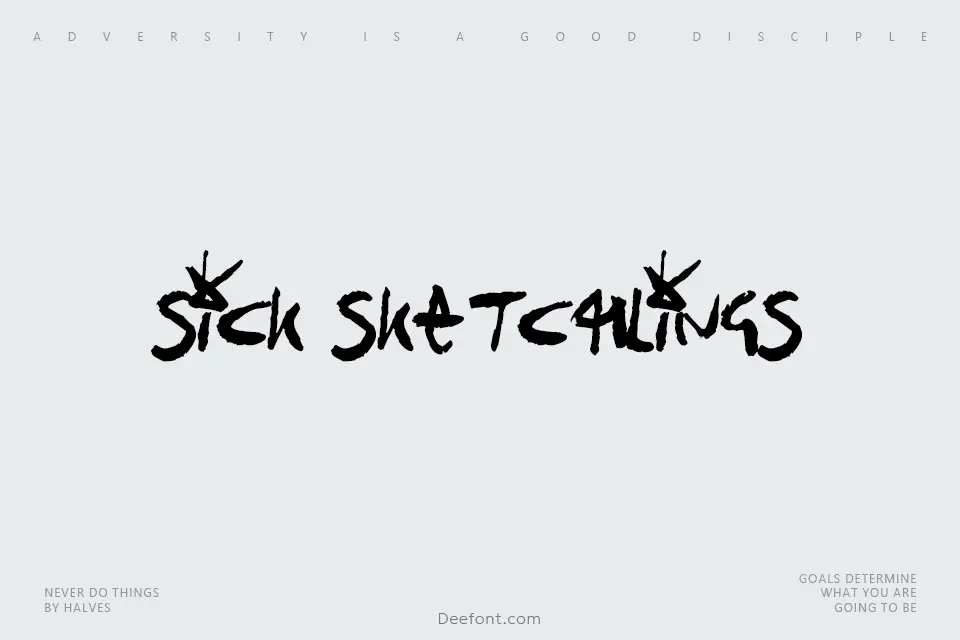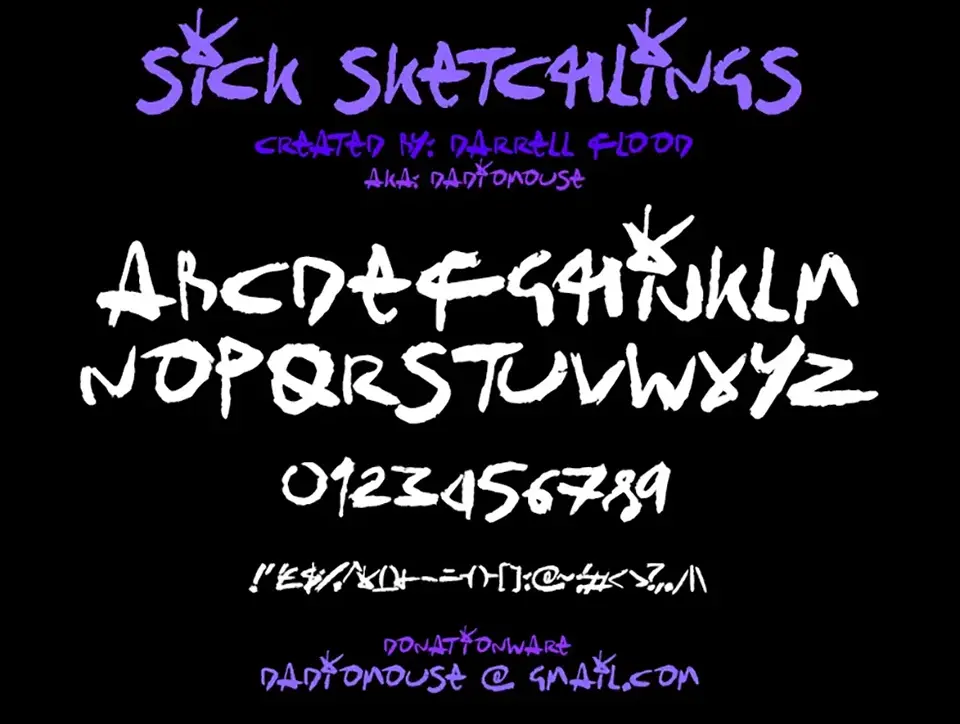
Sick Sketchlings Font
Sick Sketchlings is a distinctive handwritten font featuring a playful and whimsical style characterized by irregular lines and imperfect curves. Designed with charming imperfections and handwritten aesthetics, this versatile typeface is ideal for creative projects including greeting cards, posters, logos, and artistic compositions. The font’s casual and sketchy appearance adds a unique creative flair to any design, making it perfect for projects requiring personality and artistic expression. With 91 characters available, it brings authentic handwritten character to both personal and professional applications.